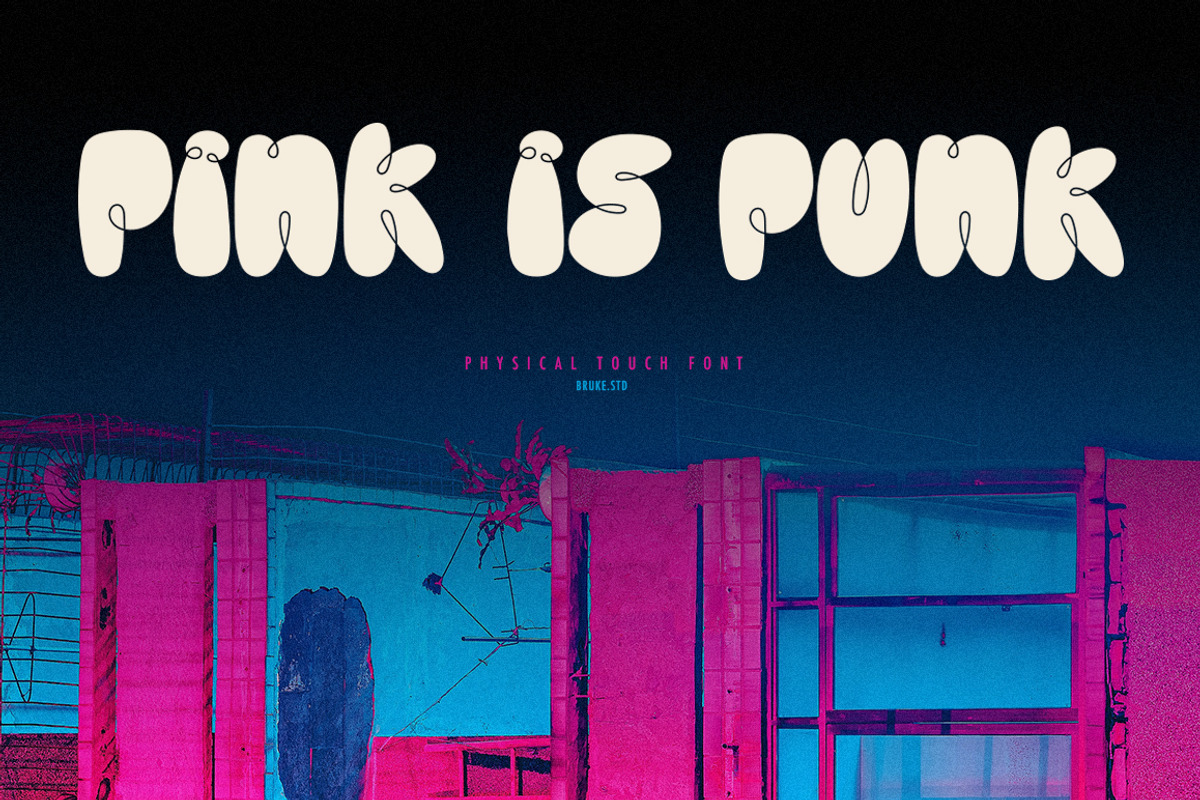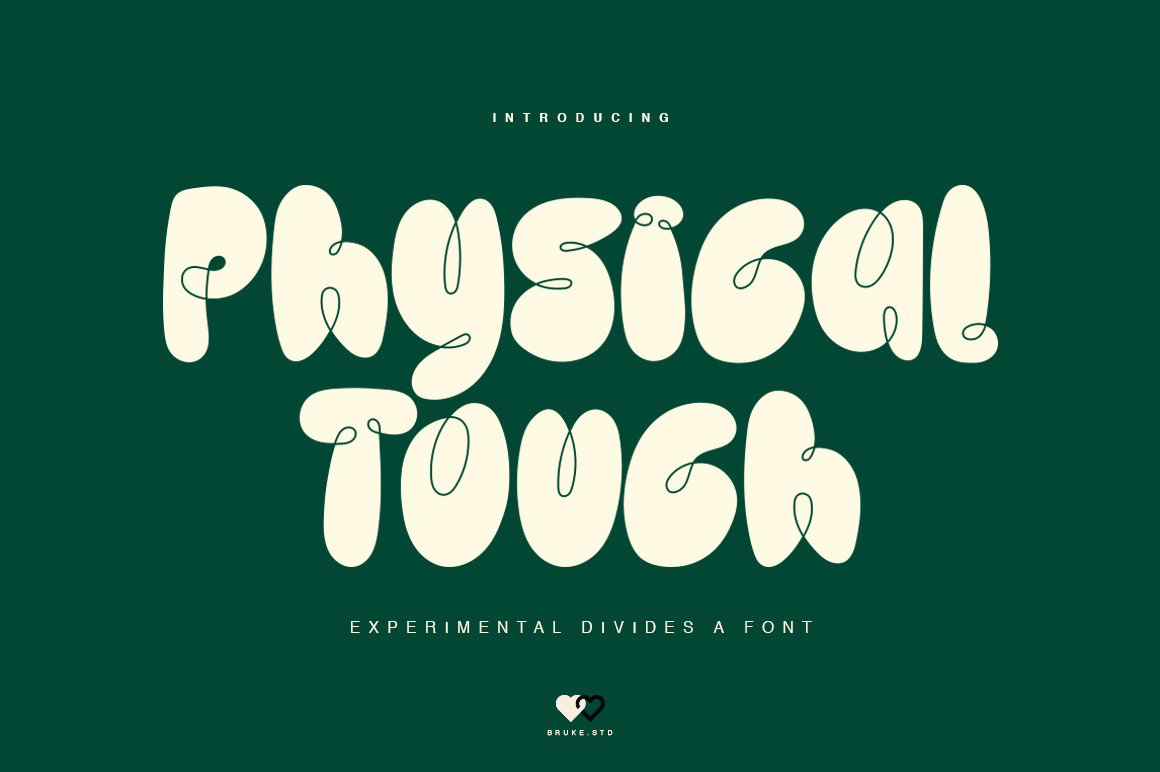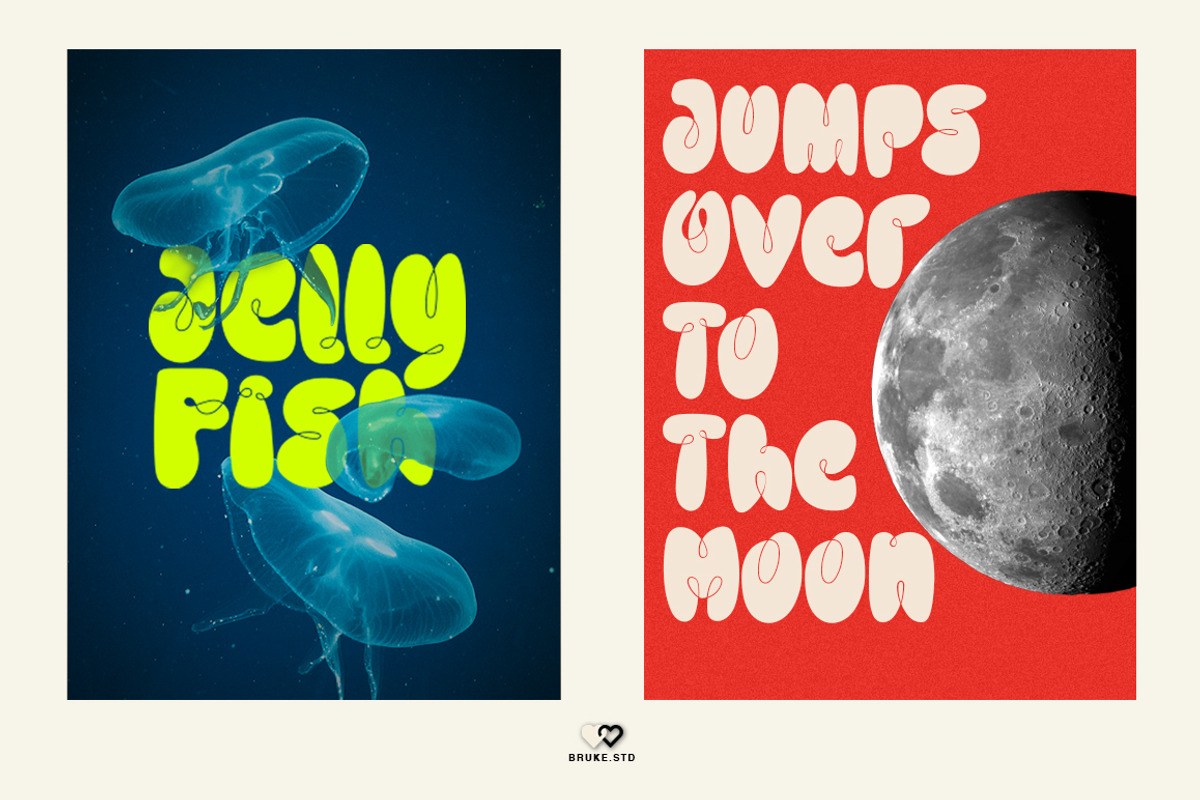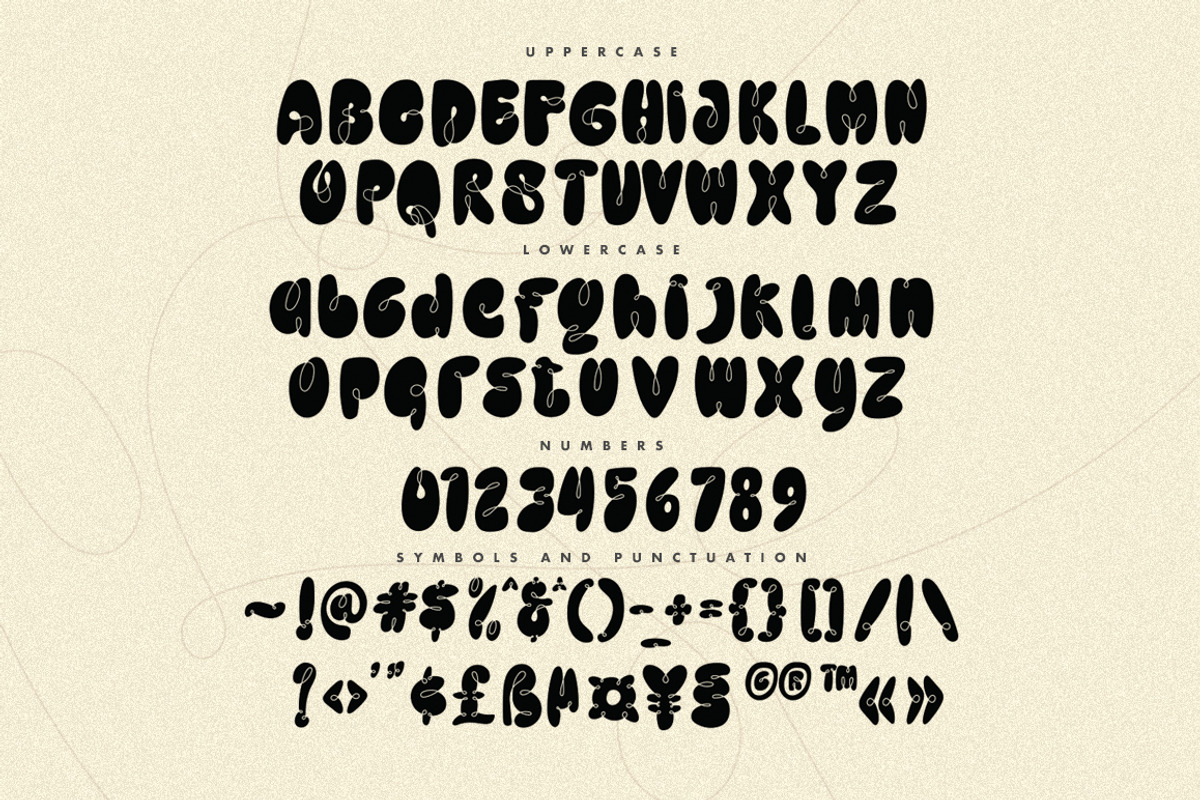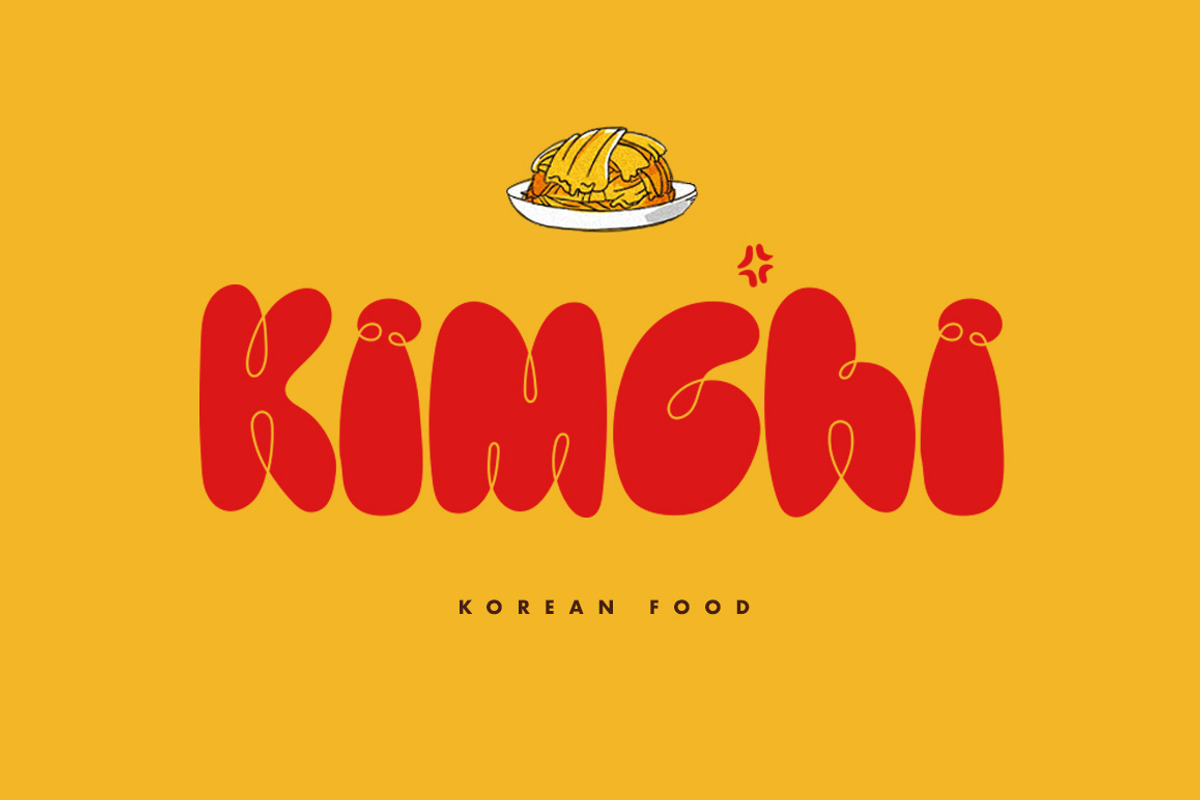
Physical Touch - Font
a Physical Touch Font is experimental divide work style. round and bubbly make it seamless and bold, with the thinnest line. Use for awsome logos, headlines, posters and anymore with a touch of bubbly style.
- Uppercase & Lowercase A-Z characters
- Numbers (0-9)
- Punctuation and Symbols